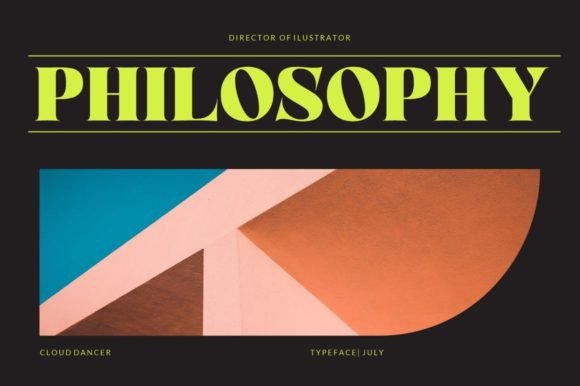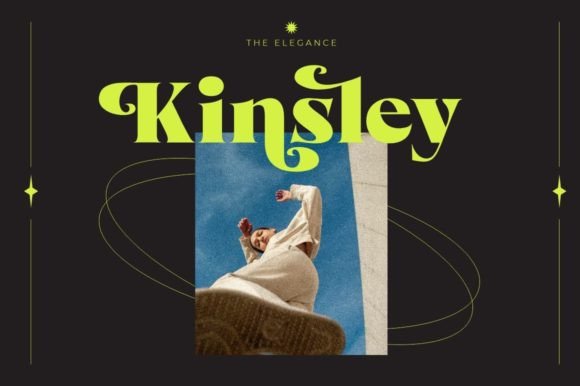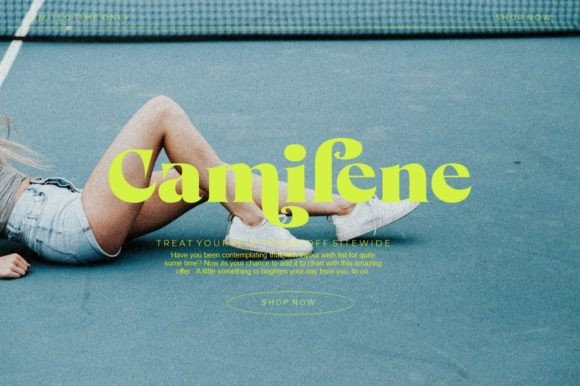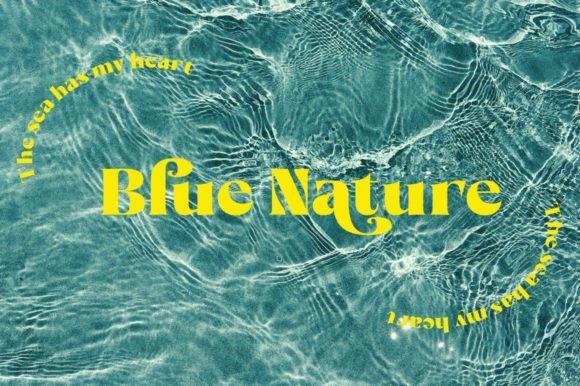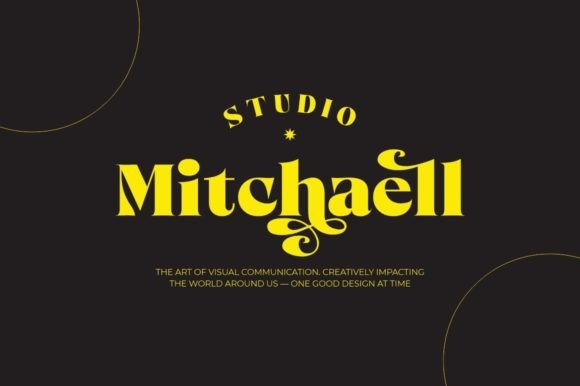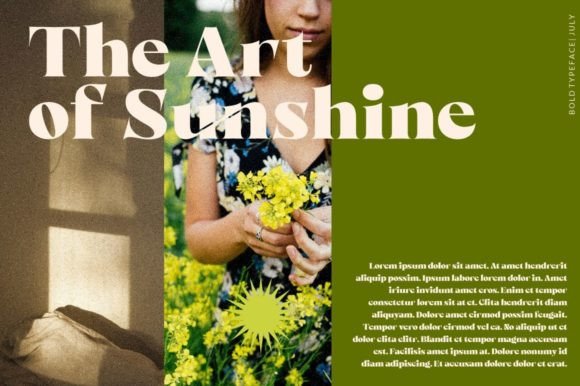
Introducing Cloud Dancer Font: Elevate Your Designs with a Nostalgic Twist
In the realm of typography, a new star has emerged to captivate designers and crafters alike. Say hello to Cloud Dancer, a bold and high-contrast display serif typeface that embodies a delightful nostalgic feeling. This stunning font is poised to revolutionize the way you approach your creative projects, offering a unique blend of classic charm and modern sophistication.
The Essence of Cloud Dancer
Cloud Dancer is more than just a font – it’s an experience. Its bold and high-contrast characteristics make it perfect for grabbing attention and making a lasting impression. The display serif typeface exudes a sense of elegance and refinement, while its nostalgic undertones evoke a bygone era of classic design. Whether you’re working on a corporate identity, website, publication, or advertising campaign, Cloud Dancer is the perfect companion to help you achieve your creative vision.
Unleash Your Creativity with Stylistic Alternates
One of the standout features of Cloud Dancer is its extensive range of stylistic alternates. These alternates allow you to customize your text and make it truly unique, giving you the flexibility to adapt the font to your specific design needs. With Cloud Dancer, you can experiment with different styles and variations to create a look that’s distinctly yours. Whether you’re looking to add a touch of whimsy or convey a sense of sophistication, the stylistic alternates have got you covered.
Cloud Dancer is an incredibly versatile font that can be used across a wide range of design applications. Here are just a few examples of how you can harness the power of Cloud Dancer:
- Corporate identities: Create a lasting impression with a bold and memorable logo that showcases your brand’s personality.
- Websites: Elevate your online presence with a font that’s optimized for digital use and sure to captivate your audience.
- Publications: Add a touch of sophistication to your titles, headings, and body text with Cloud Dancer’s elegant serif design.
- Books and magazines: Bring your stories to life with a font that’s both readable and visually stunning.
- Business cards: Make a lasting impression with a font that’s both professional and stylish.
- Logos and product labels: Create eye-catching branding that stands out from the crowd.
- Packaging and advertising: Grab attention and drive sales with a font that’s designed to convert.
Why Choose Cloud Dancer?
With so many fonts on the market, why choose Cloud Dancer? Here are just a few reasons why designers and crafters are falling in love with this incredible typeface:
- Unique and distinctive: Cloud Dancer’s bold and high-contrast design makes it stand out from the crowd, ensuring your designs are always noticed.
- Nostalgic charm: The font’s nostalgic undertones evoke a sense of classic design, perfect for projects that require a touch of vintage flair.
- Highly versatile: Cloud Dancer can be used across a wide range of design applications, from corporate identities to advertising campaigns.
- Stylistic alternates: The font’s extensive range of stylistic alternates gives you the flexibility to customize your text and make it truly unique.
In conclusion, Cloud Dancer is a game-changing font that’s poised to revolutionize the world of design. Its bold and high-contrast display serif typeface, nostalgic charm, and extensive range of stylistic alternates make it the perfect choice for designers and crafters looking to elevate their creative projects. Whether you’re working on a corporate identity, website, publication, or advertising campaign, Cloud Dancer is the perfect companion to help you achieve your design goals. So why wait? Discover the power of Cloud Dancer today and take your designs to new heights!